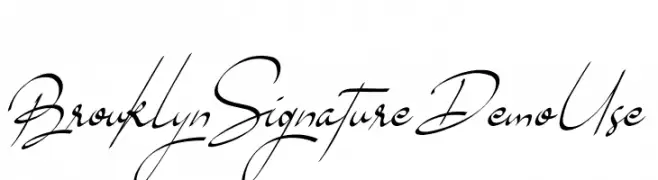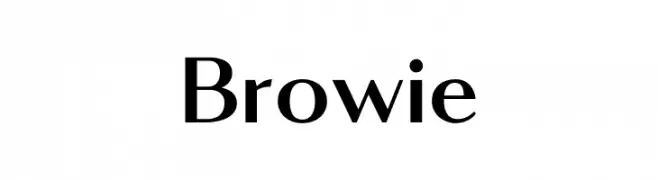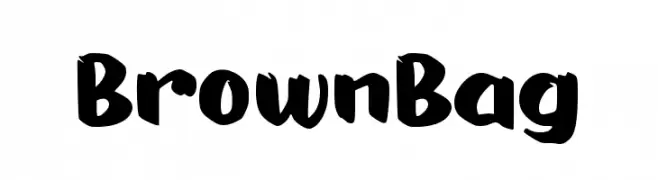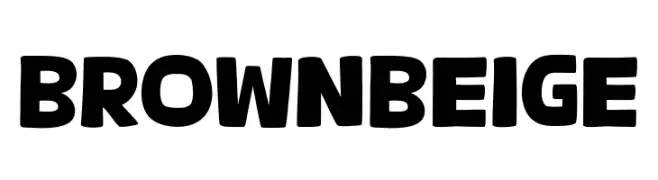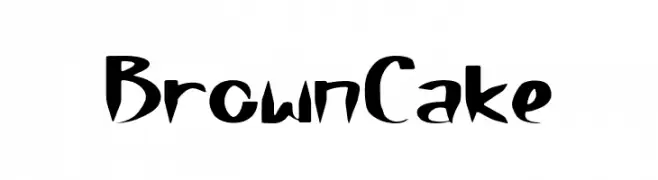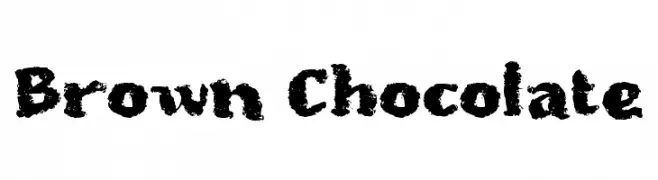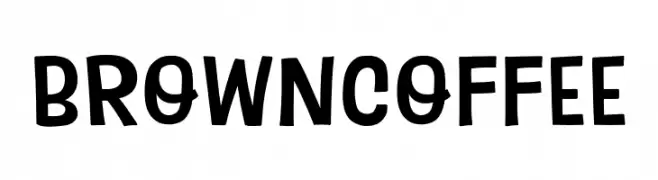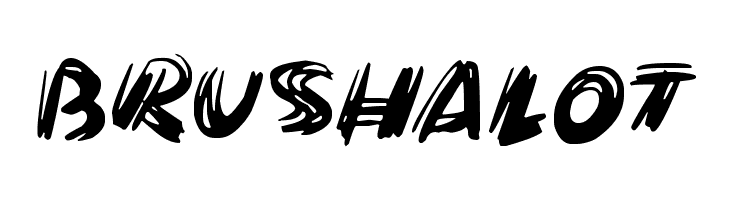
A bold, geometric font with sharp angles and unique cutouts.
An elegant, cursive font with a signature-like style and high contrast strokes.
A modern, high-contrast serif font with elegant curves and bold strokes.
Elegant script font with decorative flourishes.
A bold, hand-painted style font with an expressive and dynamic appearance.
A bold, rounded font with a playful and approachable style.
A bold, angular font with sharp edges and a dynamic, artistic style.
A bold, textured font with a playful, artistic style.
A playful, bold, and hand-drawn style font with rounded characters.